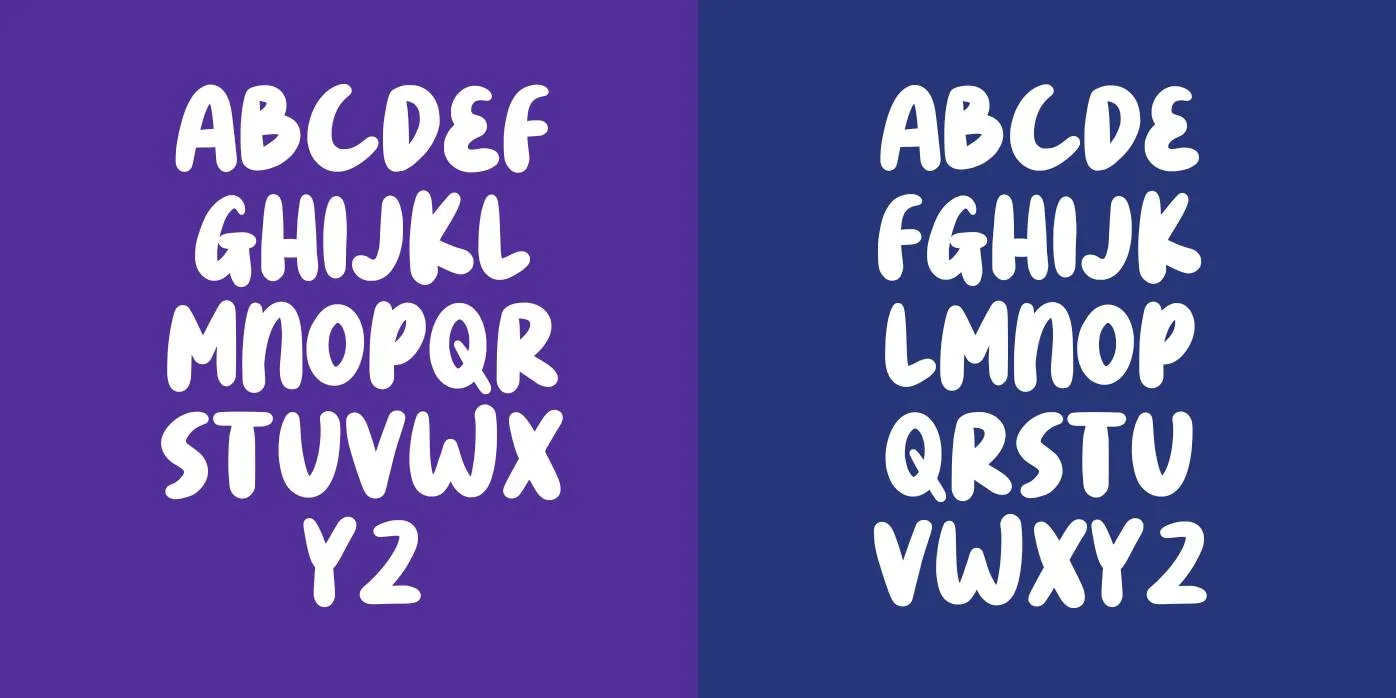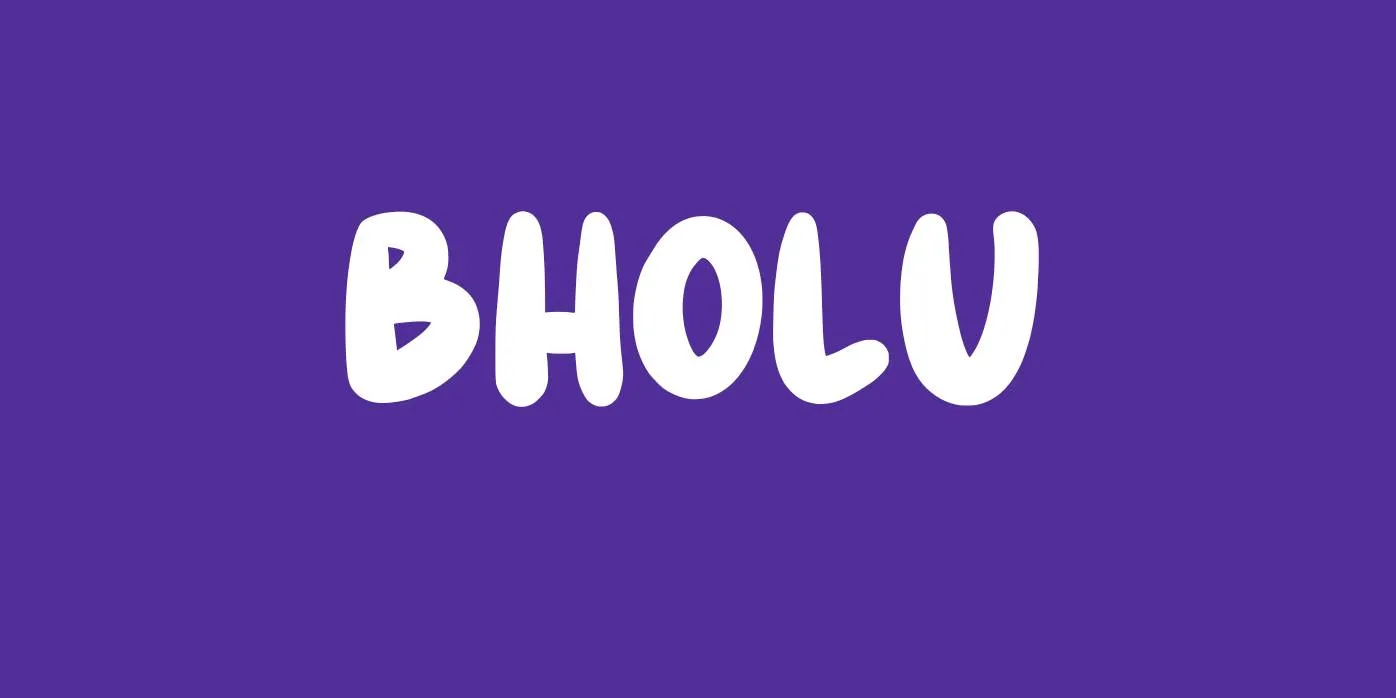
Bholu Font
Bholu Font is a very amazing comic font and it was designed by Fahrul Arhianto and published by TypeFar studio. This is a bold style fancy typeface that can only free for personal use. It contains 212 unique characters that has very well organized. This is a funky monospaced typeface design that can give a very charming look to your design.
This is an ALL-CAPS typeface that supports almost all international languages. So, you can use this family for making international projects without any hesitation. Usage You can use it for making comic books, storybook covers, and cartoons titles to attract kids and elders. It has abold strokes that was good for all types of advertising and printing projects like wedding invitations, greeting cards, T-shirts and mug designs, and many more.
Who is the designer of the Bholu font? Bholu font was designed by Fahrul Arhianto and manufactured by TypeFar Supply. This typeface includes unique features that make it more demandable in the market. Is Bholu a Google font?